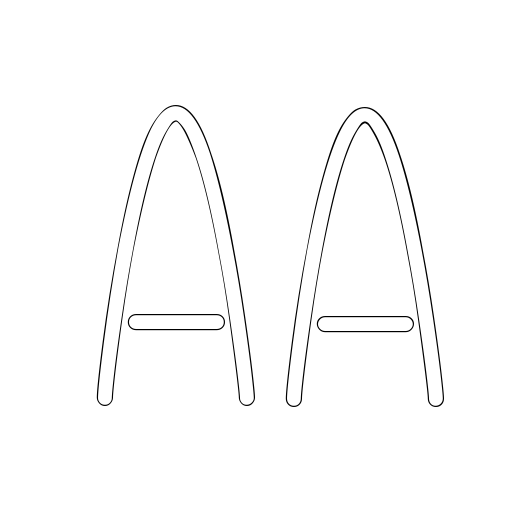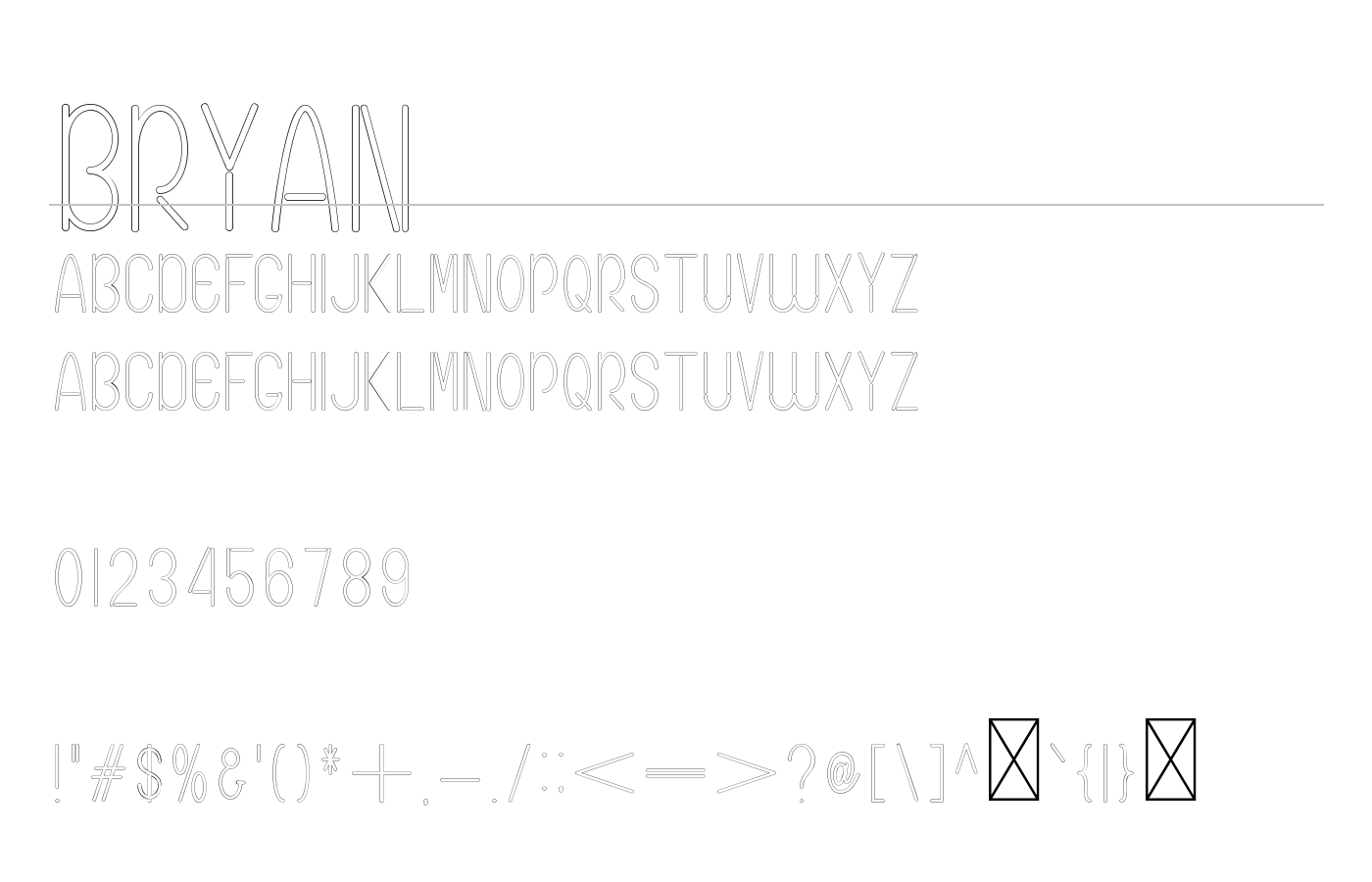
Bryan Font is a sleek, modern sans serif with an ultra-light weight and narrow width, featuring clean, geometric lines and minimal stroke contrast. Its tall x-height and single-story letterforms give it a contemporary, elegant feel that's perfect for fashion branding, editorial headlines, and stylish logos. This font’s airy and refined design brings a sophisticated yet approachable look to any design project.
Bryan Font
About Bryan Font
| Font family | Bryan Font |
| Designer | Anjas Cov Cava Lera |